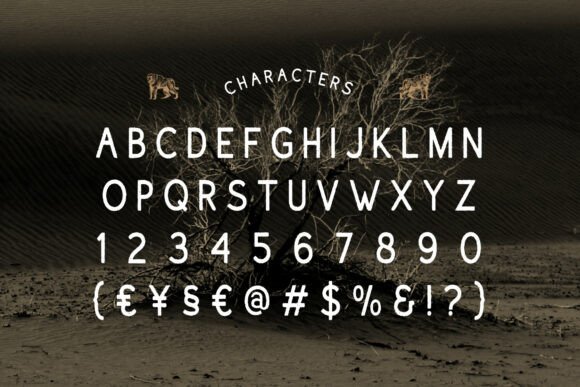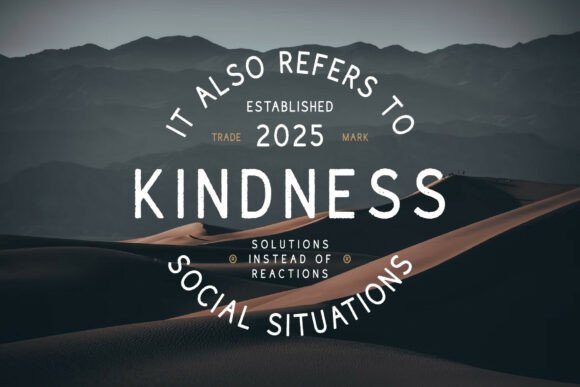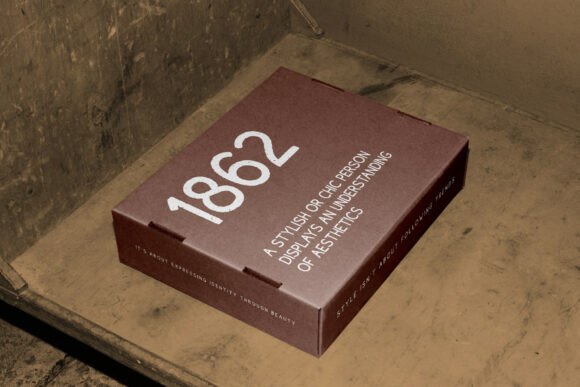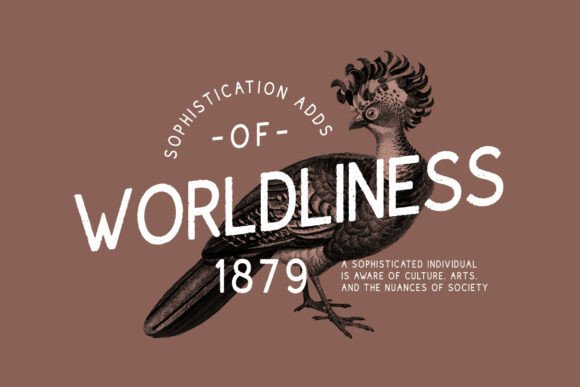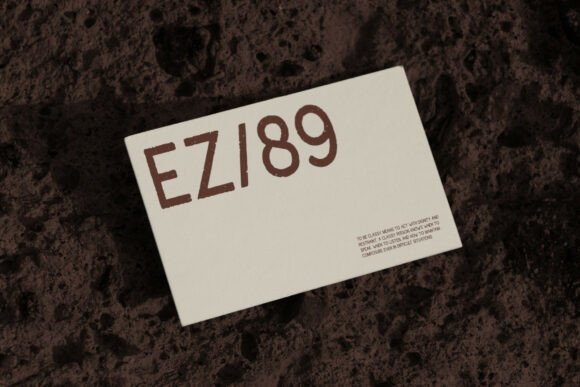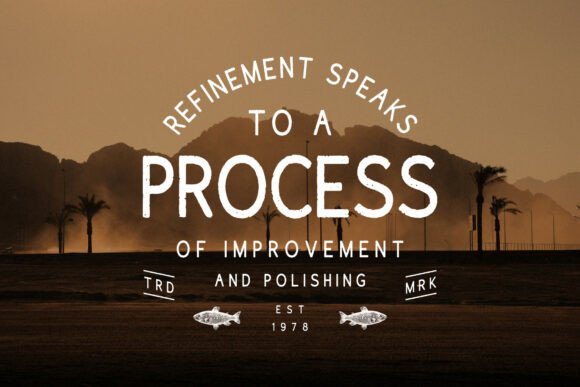
Dustmoor Font: A Timeless Typeface for Classic Adventures
Are you a designer or crafter looking for a font that captures the essence of classic adventure, craftsmanship, and timeless exploration? Look no further than Dustmoor Font, a bold and rugged display typeface that brings a handcrafted aesthetic to your work.
The Inspiration Behind Dustmoor
Dustmoor Font is designed to evoke the charm of vintage signage, wilderness trail markers, and hand-painted branding from a bygone era. The letterforms are crafted with strong, confident strokes and subtly irregular contours, giving the font a unique and authentic feel. The result is a typeface that feels both nostalgic and enduring, perfect for designers looking to infuse their work with personality and character.
Key Features of Dustmoor Font
- Bold and Rugged: Dustmoor Font is a display typeface that packs a punch. Its bold strokes and rugged contours make it perfect for headlines, titles, and other display text.
- Handcrafted Aesthetic: The font’s subtly irregular contours and confident strokes give it a handcrafted feel that’s perfect for designers looking for a unique and authentic look.
- Nostalgic and Enduring: Dustmoor Font is designed to evoke the charm of a bygone era. Its classic look and feel make it perfect for projects that require a timeless aesthetic.
- Versatile: Whether you’re working on a logo, a poster, or a website, Dustmoor Font is a versatile typeface that can be used in a variety of design applications.
What Makes Dustmoor Font Perfect for Designers and Crafters?
Dustmoor Font is more than just a typeface – it’s a design tool that can help you create unique and compelling work. Here are just a few reasons why designers and crafters love Dustmoor Font:
- Authenticity: Dustmoor Font’s handcrafted aesthetic gives your work an authentic, small-batch feel that’s perfect for designers and crafters who value uniqueness and character.
- Personality: The font’s bold and rugged strokes give it a personality that’s hard to ignore. Use Dustmoor Font to add a touch of adventure and exploration to your work.
- Timelessness: Unlike trendy typefaces that can quickly go out of style, Dustmoor Font has a timeless quality that ensures your work will look great for years to come.
Using Dustmoor Font in Your Design Projects
So how can you use Dustmoor Font in your design projects? Here are a few ideas to get you started:
- Logos and Branding: Use Dustmoor Font to create a bold and memorable logo that captures the essence of your brand.
- Posters and Flyers: Add a touch of adventure and exploration to your posters and flyers with Dustmoor Font’s bold and rugged strokes.
- Websites and Digital Design: Use Dustmoor Font to add a touch of personality and character to your website or digital design project.
Dustmoor Font is a bold and rugged display typeface that captures the essence of classic adventure, craftsmanship, and timeless exploration. With its handcrafted aesthetic, confident strokes, and subtly irregular contours, it’s the perfect choice for designers and crafters looking to infuse their work with authenticity and personality. Whether you’re working on a logo, a poster, or a website, Dustmoor Font is a versatile typeface that can help you create unique and compelling work.